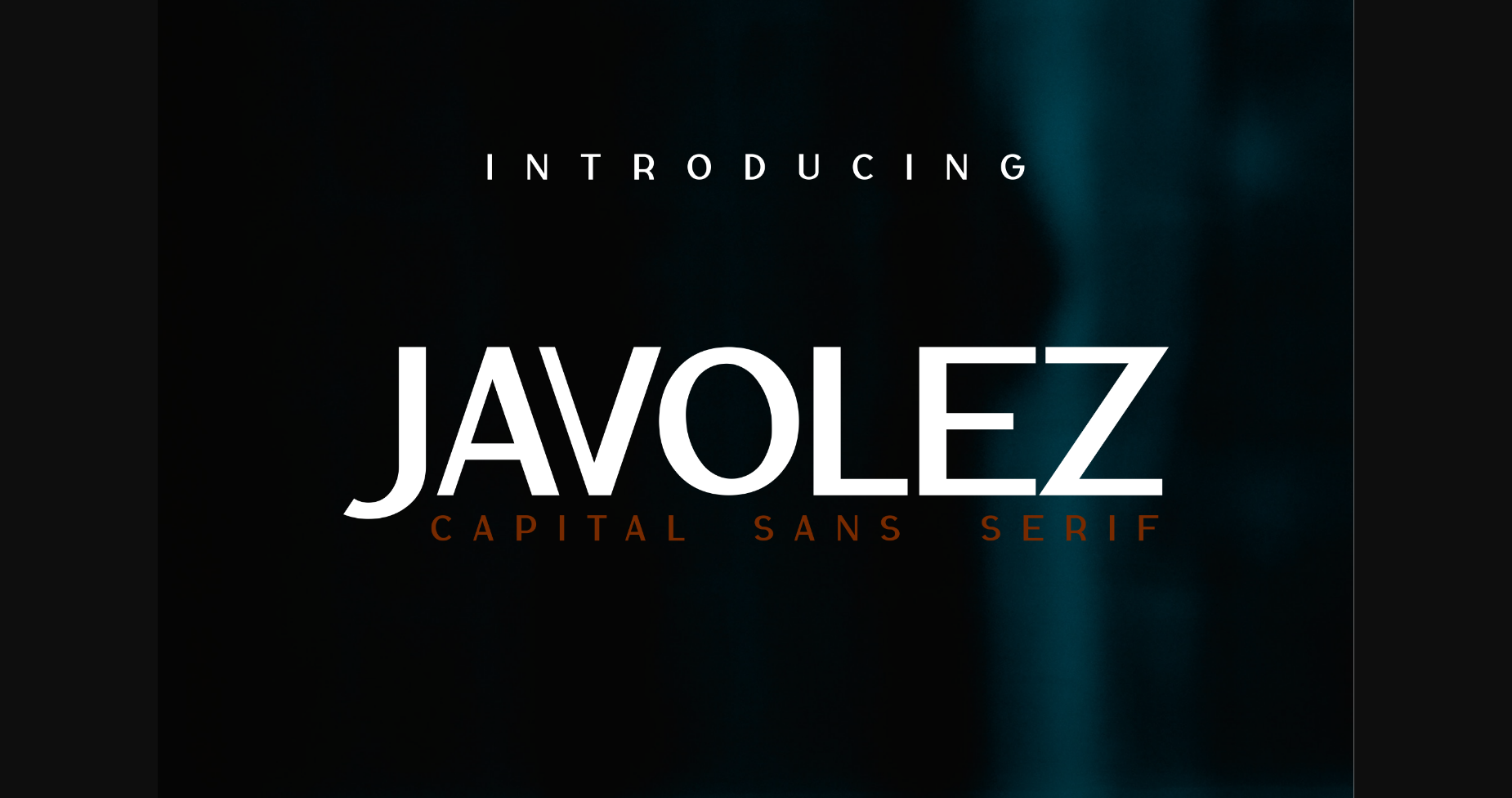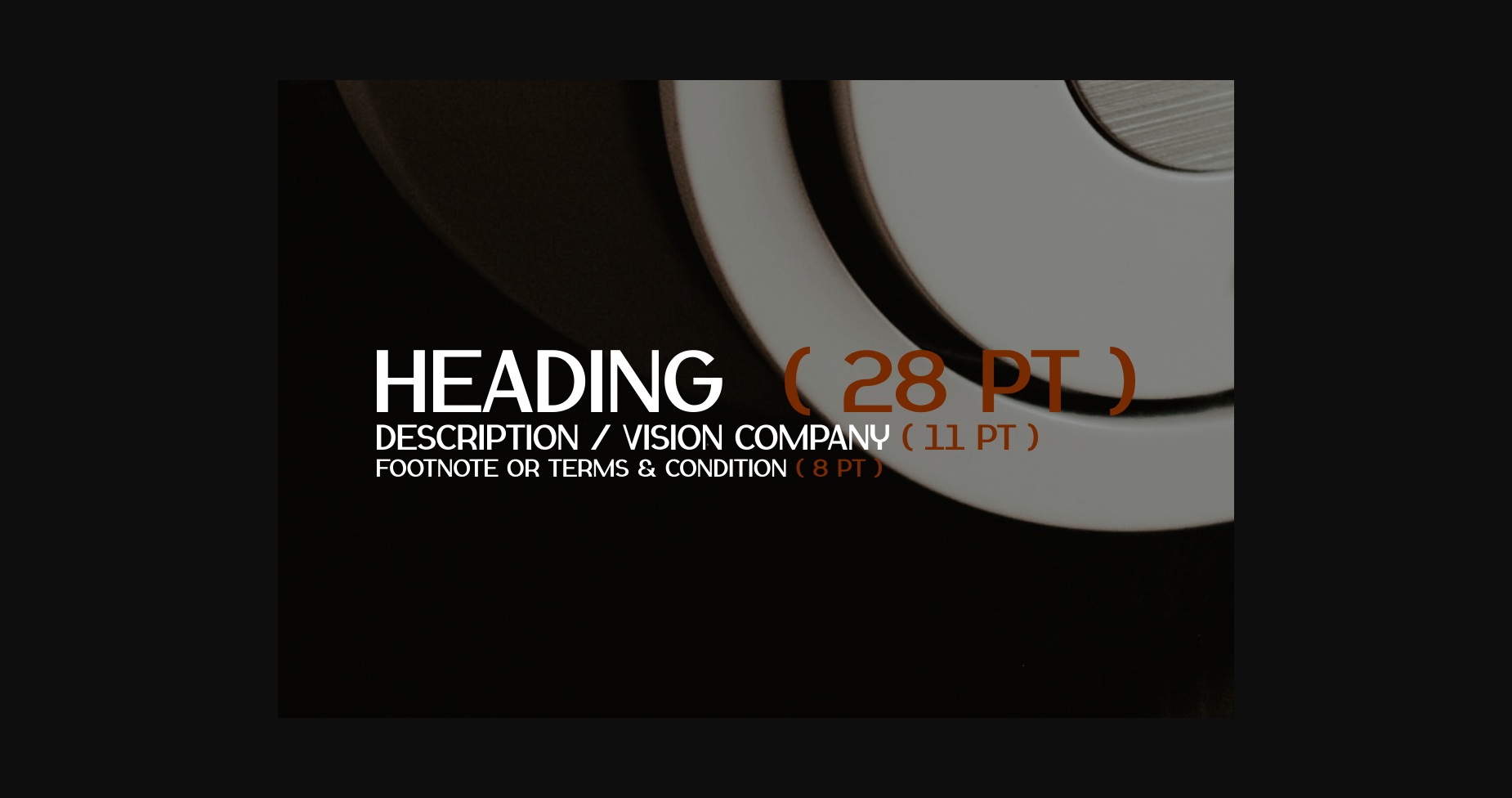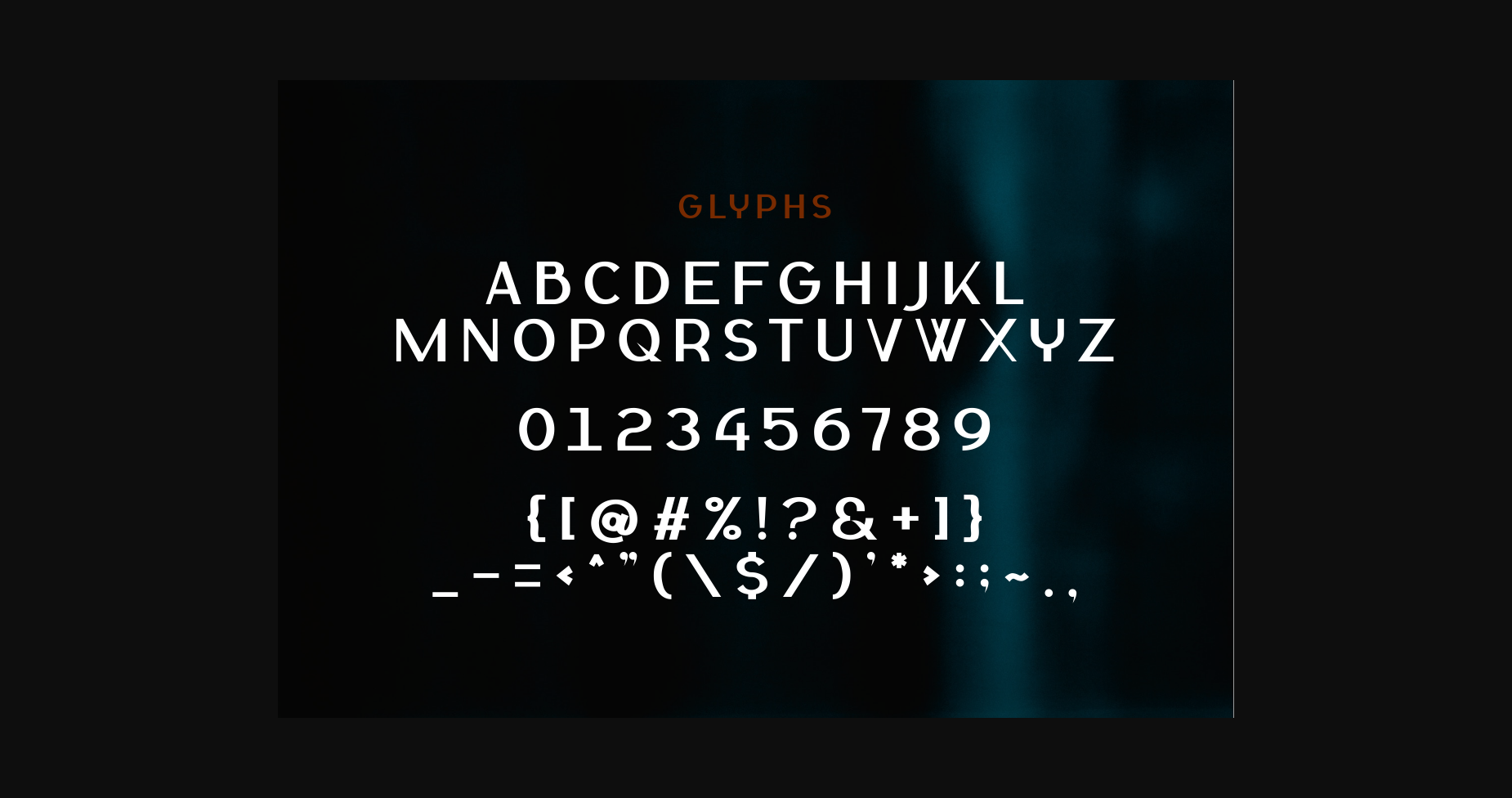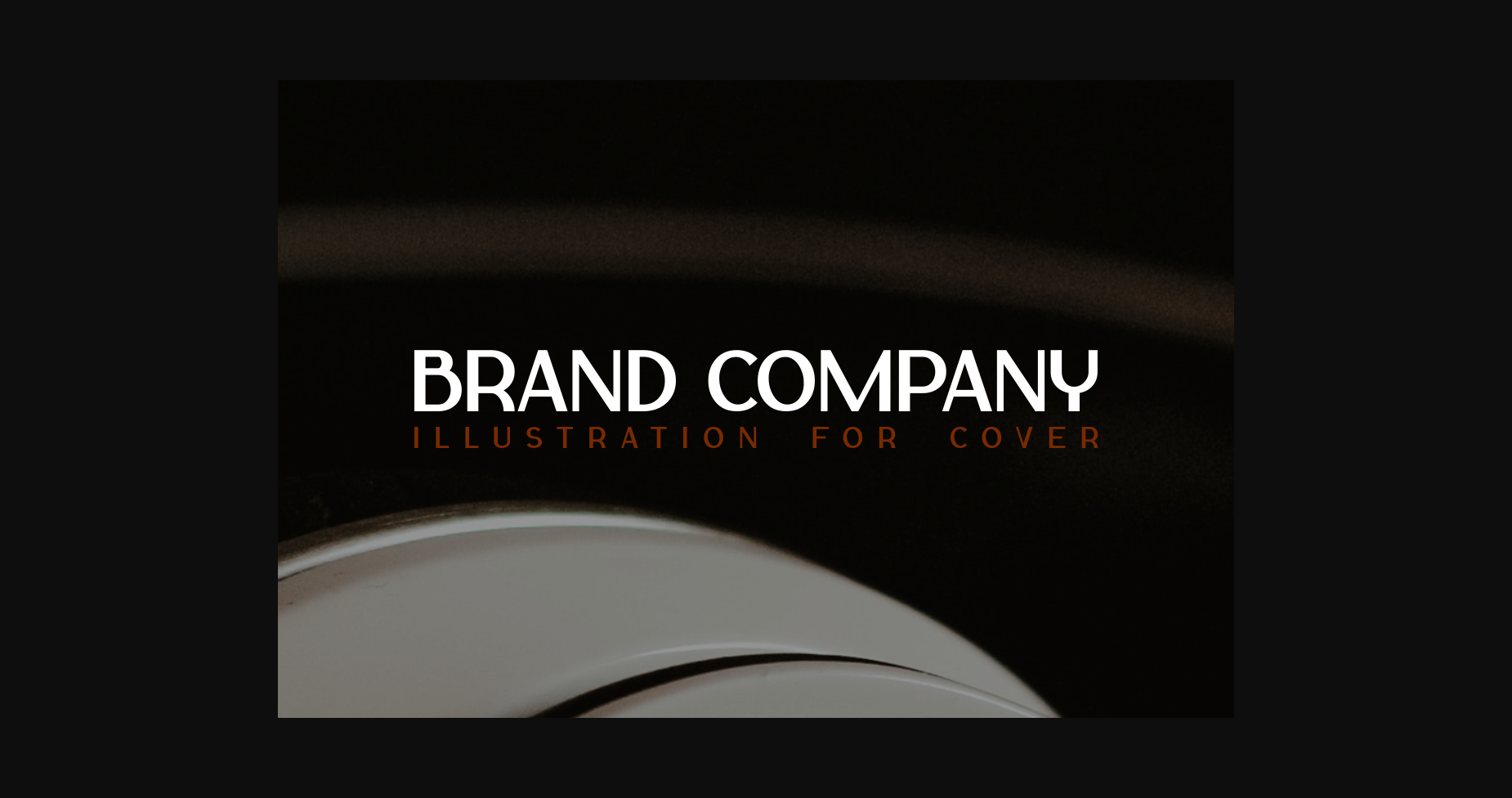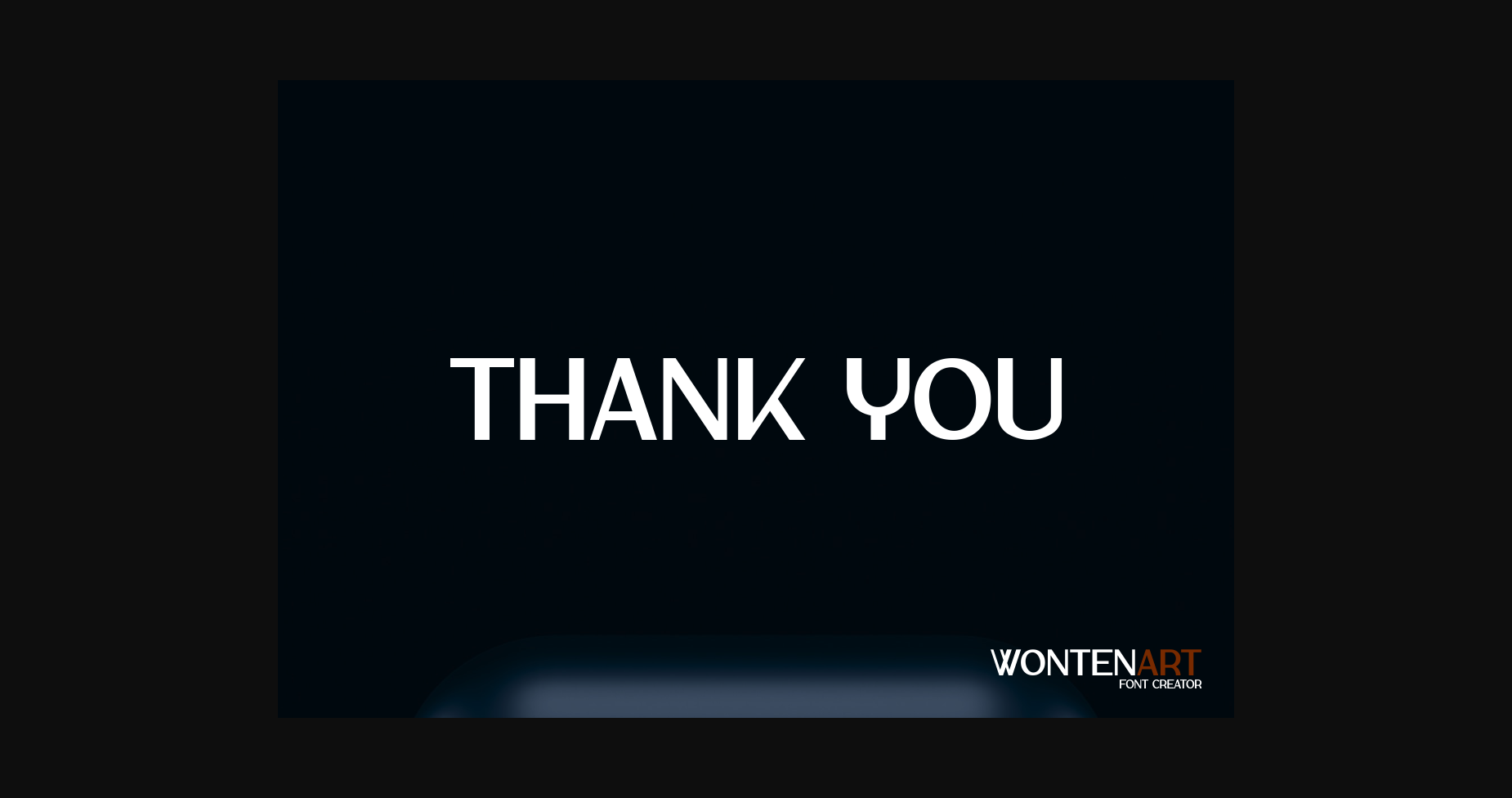
HomeSans Serif FontsJavolez Font Sans Serif Fonts Javolez Font FacebookXPinterestWhatsApp 1 of 7 ... Javolez Font Poster 2... Javolez Font Poster 3... Javolez Font Poster 4... Javolez Font Poster 5... Javolez Font Poster 6... Javolez Font Poster 7... About Javolez Font Javolez is a bold, easy-to-read sans serif font. This minimalist and clean vibe can easily apply to your favorite designs such as book covers, magazines, social media posts, invitations, and so much more! DOWNLOAD NOW People also explored Marahaban Font Sweet Love Font Birthink Font Soft Candy Font Blastic Font Labrys Font Bobby Font Reon Font Simple Flowers Font 302 0 TagsJavolezJavolez Font Previous articleVenskate FontNext articleTumbler Font LEAVE A REPLY Cancel reply Comment: Please enter your comment! Name:* Please enter your name here Email:* You have entered an incorrect email address! Please enter your email address here Website: Save my name, email, and website in this browser for the next time I comment. Personal Use Free Imelda Personal Use Free Read more about this font Hanberra Personal Use Free Read more about this font Monogram Veg Personal Use Free Read more about this font Lion Teen Personal Use Free Read more about this font BLOG How to Install and Use Fonts on Windows, macOS, and Web Projects How to Install and Use Fonts on Windows, macOS, and Web Projects Fonts are a crucial part of design and branding. Whether you’re designing a... Free Fonts Risk: Why Free Fonts Can Be Dangerous for Designers Modern Sans-Serif Fonts That Brands Love in 2025 Best Fonts for YouTube Videos: Make Your Thumbnails Stand Out